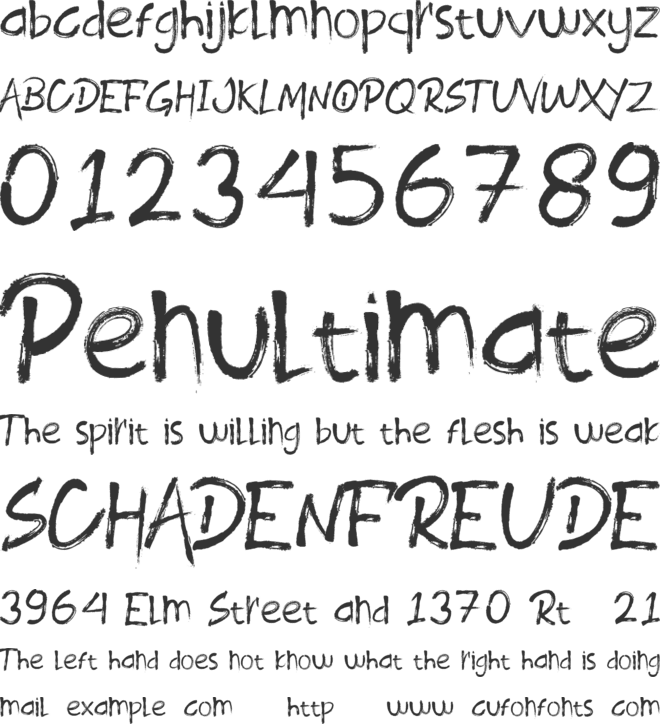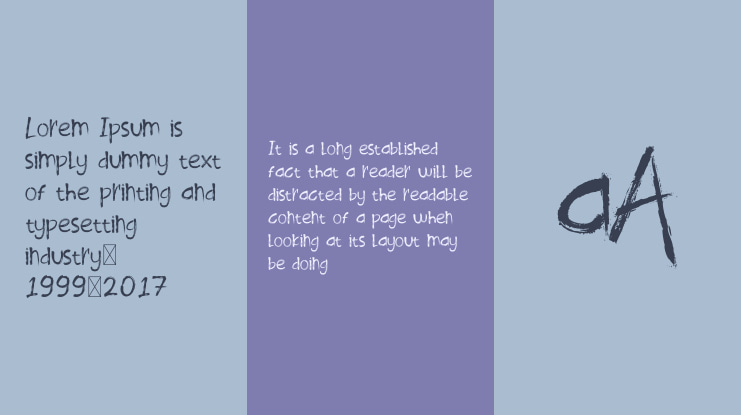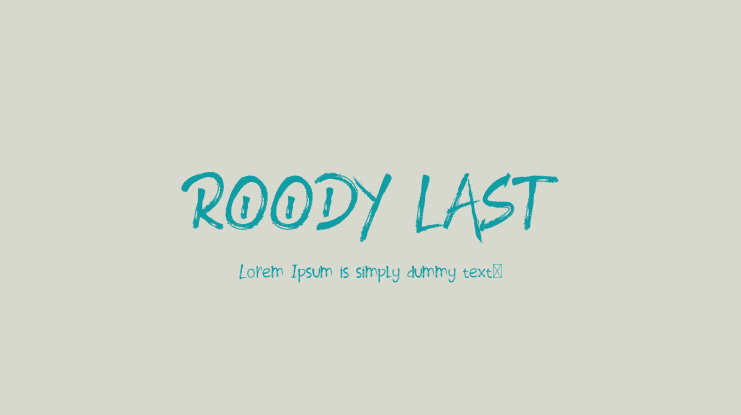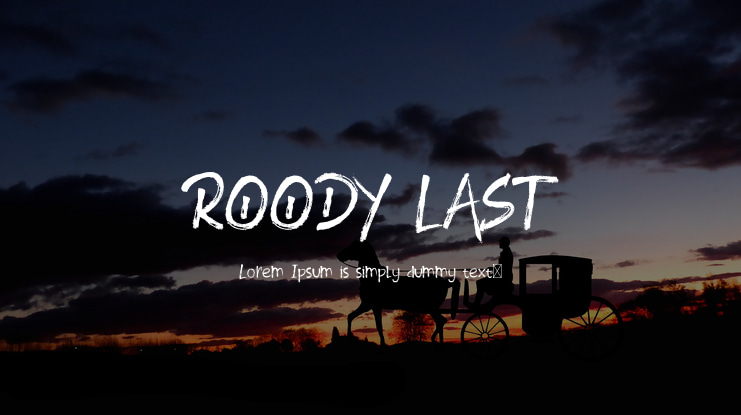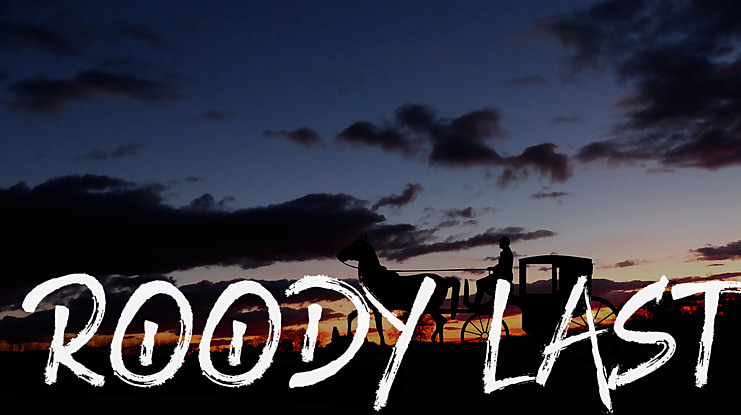
ROODY LAST Font
ROODY LAST Font is street-wise brush font bursting with energy. With extra attention to quick strokes and sharp details,
ROODY LAST is ideal for logos, apparel, T-shirt, Hoodie, quotes, product packaging, or anything which needs a typographic brush effect.